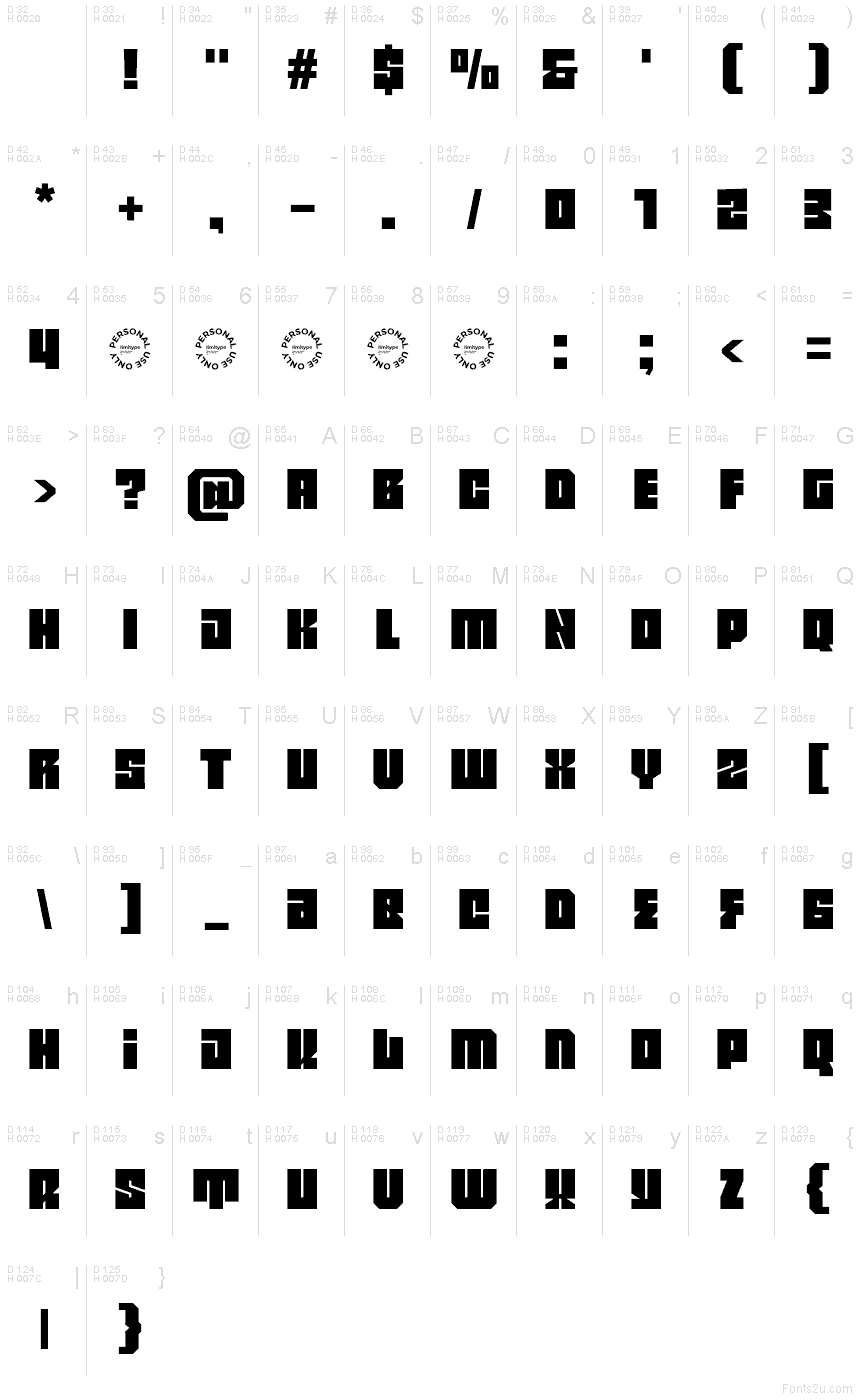
Cosmico Demo
Cosmico font by Limitype is a bold display typeface that embodies a futuristic and geometric vibe. Its modernist influences are evident in its square-shaped characters and structural cohesion, creating a sleek visual appearance. Ideal where contemporary aesthetics are needed, this free display font promises to make an impact wherever used.
Some ideas on its use include any poster design, product packaging, magazine covers, book covers, album art design, website designs that yearn for uniqueness, any promotional advertorials on print or online billboards.